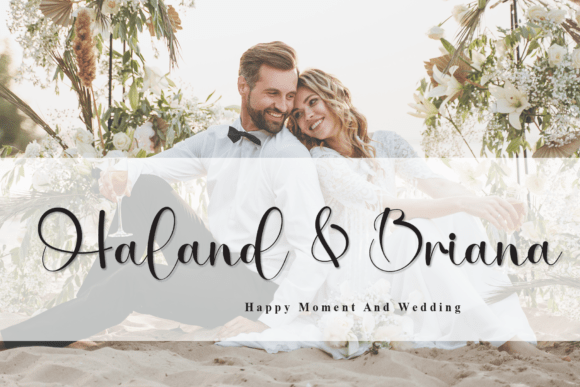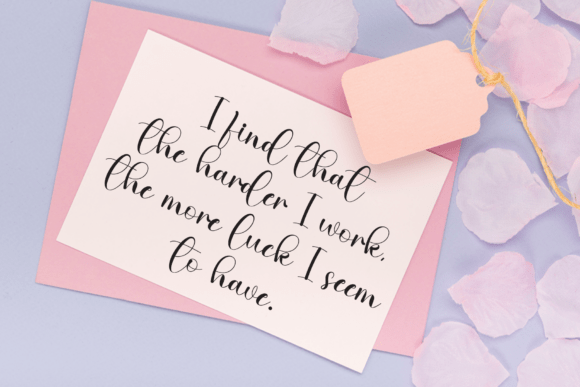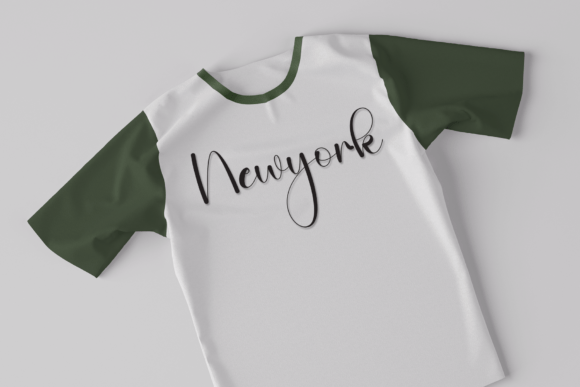
Introduction to Evelyne Font
Evelyne is a simple yet stunning handwritten font that prioritizes grace and minimalism.
This Evelyne font is characterized by its wide, airy letterforms and extended horizontal swashes that create a sense of calm and sophistication The Evelyne typeface is the perfect choice for minimalist wedding stationery, lifestyle blogs, and organic beauty branding.
Key Features of Evelyne Font